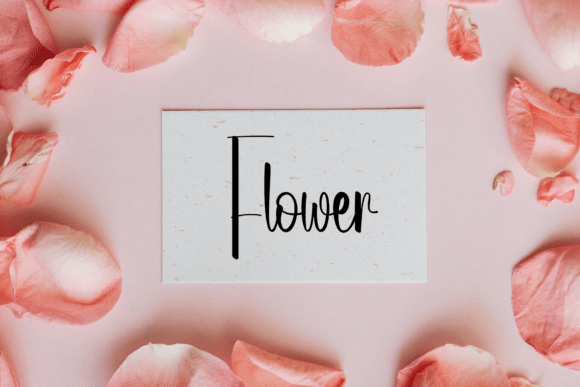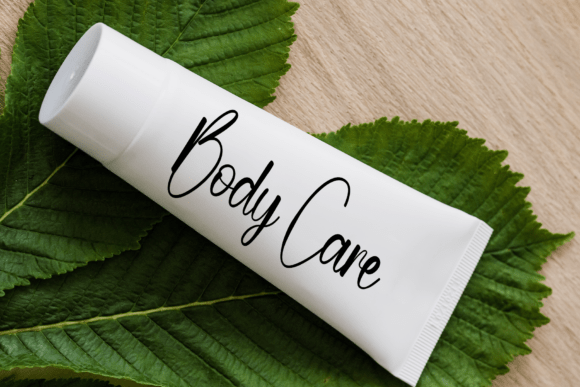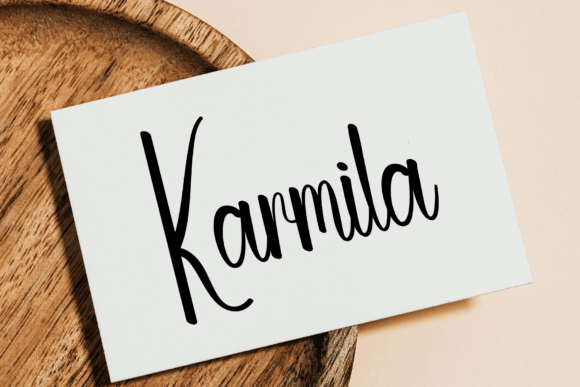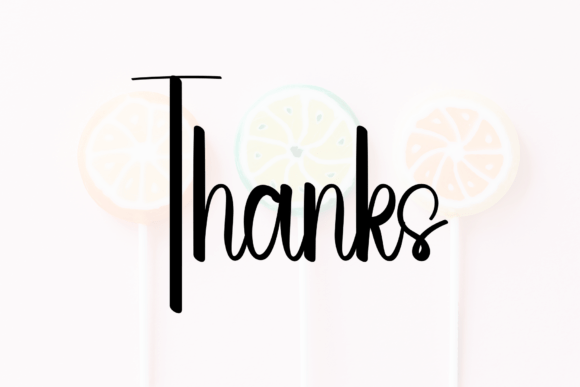
The Perfect Blend of Luxury and Casual: Big Candy Font
Do you ever get that feeling when you’re brainstorming for a new project and suddenly, the perfect idea just pops out? It’s like a spark of creativity that ignites a whole new world of possibilities. For many designers, that moment often comes when they stumble upon the perfect font to bring their vision to life. For me, that moment was when I discovered Big Candy Font.
This beautiful handwritten font is reminiscent of being drawn with a marker, exuding a relaxed and sporty vibe that’s perfect for a wide range of designs, from branding and logos to wedding supplies, greeting cards, and fashion lookbooks. The Big Candy Font is a valuable addition to any designer’s toolkit, offering a unique blend of luxury and elegance with a touch of casual charm.
- Unique Characteristics: Big Candy Font features a bold, playful, and whimsical design, making it perfect for creating eye-catching and attention-grabbing headlines and titles
Big Candy Font Review
Big Candy Font is a bold, playful font that is perfect for grabbing attention. ✨ I love how it adds a touch of whimsy to any design. The font is well-suited for use in titles, headings, and other areas where you want to emphasize a message.
The font’s rounded edges and irregularities give it a hand-drawn feel, which adds to its charm. ✨ The font is also highly customizable, with options to adjust the size, color, and spacing to suit your design needs.
While Big Candy Font is a great choice for some designs, it may not be suitable for all projects. ⚠️ The font can be quite loud and overwhelming if used in excess, so be sure to balance it with more subdued elements to avoid visual overload.
Additionally, the font’s irregularities can make it challenging to read in certain situations, such as in small sizes or when used in dense text. ⚠️ However, with careful planning and design, these limitations can be mitigated.
Big Candy Font is a fun and engaging font that can add a lot of personality to your designs. With careful use and consideration of its limitations, it can be a great choice for a wide range of projects.
- Bold, playful design
- Well-suited for titles and headings
- Customizable size, color, and spacing
- Hand-drawn feel
- May be overwhelming if used in excess
- Can be challenging to read in certain situations
Tips for Getting the Most Out of Big Candy Font
Use Big Candy Font to add a playful and whimsical touch to your designs.
Pair it with bold and bright colors to create a eye-catching effect.
Experiment with different font sizes and styles to create a unique look.
Use Big Candy Font for:
Candy-themed designs and packaging.
Children’s birthday party invitations and decorations.
Food and beverage branding